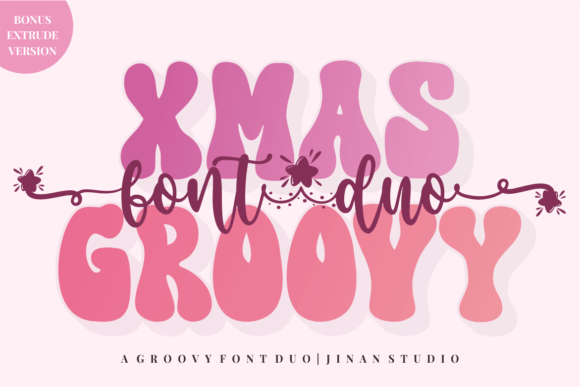
Xmas Groovy Duo: A Festive Font Pair for Every Occasion
Typography plays a crucial role in visual communication, and choosing the right font can make all the difference in how your message is received. If you're looking for a stylish, versatile, and festive font solution that blends charm with functionality, Xmas Groovy Duo could be the perfect fit. This font pairâcomprising a display typeface and a complementary scriptâoffers a unique combination of character and clarity, making it ideal for both personal projects and professional branding.
What Is Xmas Groovy Duo?
Xmas Groovy Duo is a curated set of two fonts designed to work harmoniously together. The first is a bold, eye-catching display font that commands attention, while the second is a more fluid and decorative script font that adds personality and warmth. Together, they create a balanced typographic system suitable for a wide range of applicationsâfrom holiday greetings to commercial designs.
This duo is especially popular among designers who want to infuse their work with a playful yet polished aesthetic. Its name suggests a seasonal theme, but its adaptability extends far beyond December. Whether you're designing for Christmas or another occasion, Xmas Groovy Duo brings a touch of cheer and creativity to every project.
Key Features That Set It Apart
- Stylish Display Font: The display font features rounded edges, exaggerated serifs, and a vibrant rhythm that makes it stand out on any page or screen.
- Cute Script Companion: The script font mimics handwritten lettering with a friendly and approachable feel, perfect for adding a personal touch to messages and labels.
- Versatile Pairing: These fonts complement each other without clashing, allowing for layered text treatments and dynamic layouts.
- Wide Character Support: Includes special characters, ligatures, and glyphs tailored for holiday themes, but also works well in general use.
- High Readability: Despite its decorative nature, the script maintains legibility, ensuring your content remains clear and engaging.
Why Choose Xmas Groovy Duo?
When selecting a font for your design, it's essential to consider both form and function. Xmas Groovy Duo strikes an excellent balance between the two. The display font is robust enough for headlines and large text areas, while the script offers flexibility for smaller details like captions, signatures, or product names.
One of the standout qualities of this duo is its ability to convey emotion effectively. The scriptâs hand-drawn appeal invites a sense of intimacy, whereas the display font exudes confidence and energy. This duality allows users to express different tones within a single design, enhancing storytelling and user engagement.
Real-World Applications
Fonts are more than just lettersâtheyâre tools that shape perception and interaction. Hereâs where Xmas Groovy Duo shines in real-world settings:
Personal Projects
From DIY greeting cards to custom gift tags, Xmas Groovy Duo brings a festive flair to personal creations. The script font is particularly useful for handwritten-style notes, giving gifts and cards a personalized feel that mass-produced items often lack. For digital planners or calendars, the display font ensures key dates and events pop visually, while the script adds a whimsical element to daily reminders.
Professional Branding
In a business context, this font duo can help reinforce brand identity. Companies in the hospitality, retail, or creative sectors might use Xmas Groovy Duo to craft seasonal promotions or themed packaging. The bold display font is great for logos or promotional banners, while the script can add elegance to menus, invitations, or social media posts.
Marketing and Advertising
Marketers often rely on typography to evoke specific moods. During the holidays, Xmas Groovy Duo can be used to create eye-catching ads for sale events, festive campaigns, or customer appreciation messages. The duoâs versatility means it can easily transition from print materials like posters and brochures to digital formats such as email newsletters and website headers.
Education and Presentations
Educators and presenters can benefit from using Xmas Groovy Duo to make slides or learning materials more engaging. While the display font is best reserved for titles and section headers, the script can be used sparingly to highlight key takeaways or add motivational quotes at the end of a lesson. This creates a memorable and visually appealing experience for students and audiences alike.
Freelance and Creative Work
For graphic designers, illustrators, and content creators, having access to a cohesive font pair is invaluable. Xmas Groovy Duo allows for seamless integration into logos, illustrations, book covers, and even app interfaces. Its distinct style helps set a designerâs work apart, offering clients a fresh and modern look without sacrificing readability.
Its blend of boldness and charm makes it suitable for diverse industries and purposes. As long as you apply it thoughtfully and align it with your project goals, Xmas Groovy Duo can become a valuable asset in your design toolkit.
If you're looking to add a touch of festivity, professionalism, or playfulness to your next project, give Xmas Groovy Duo a try. Youâll find itâs not only versatile but also surprisingly easy to implement, delivering strong visual impact with minimal effort.